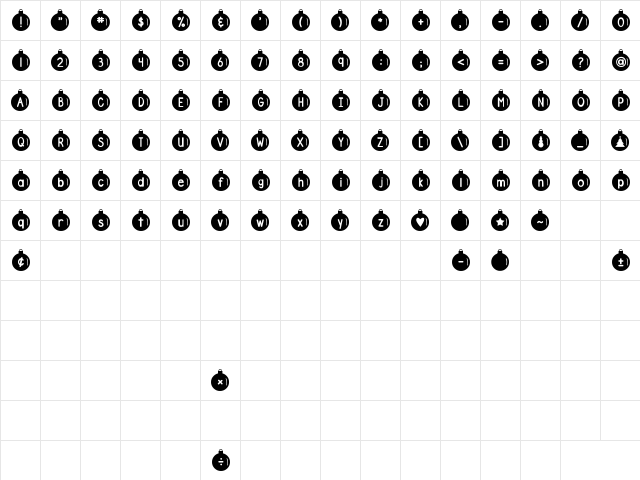
DJB Ornamental 2 Regular
| Designer | Darcy Baldwin |
Design Context for DJB Ornamental 2 Typeface
DJB Ornamental 2 brings ornamental detail and strong personality to headlines and identities, where visual impact matters more than quiet functionality.
Font Pairing: Pair with a clean neutral sans-serif for body copy to let DJB Ornamental 2's character lead without overwhelming the composition.
Pro Tip: Treat DJB Ornamental 2 as the centrepiece of your typographic hierarchy. One strong heading set in a decorative face can carry an entire layout.